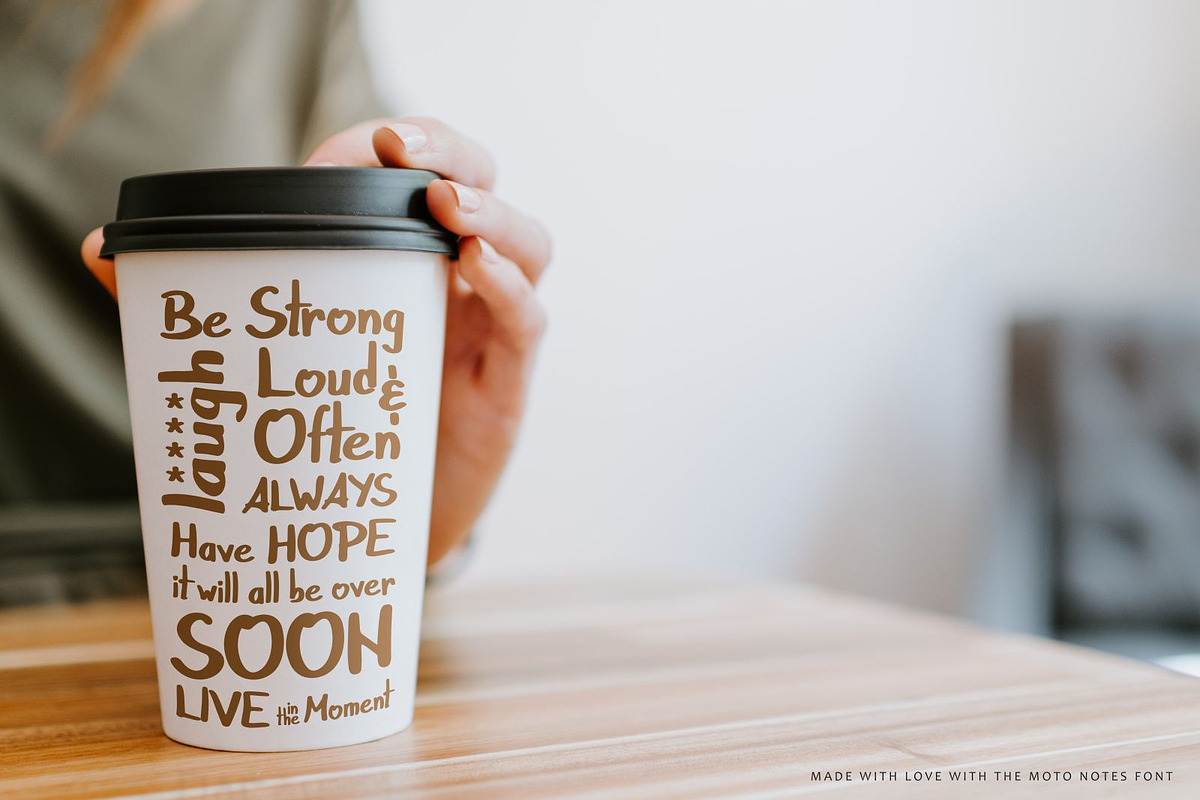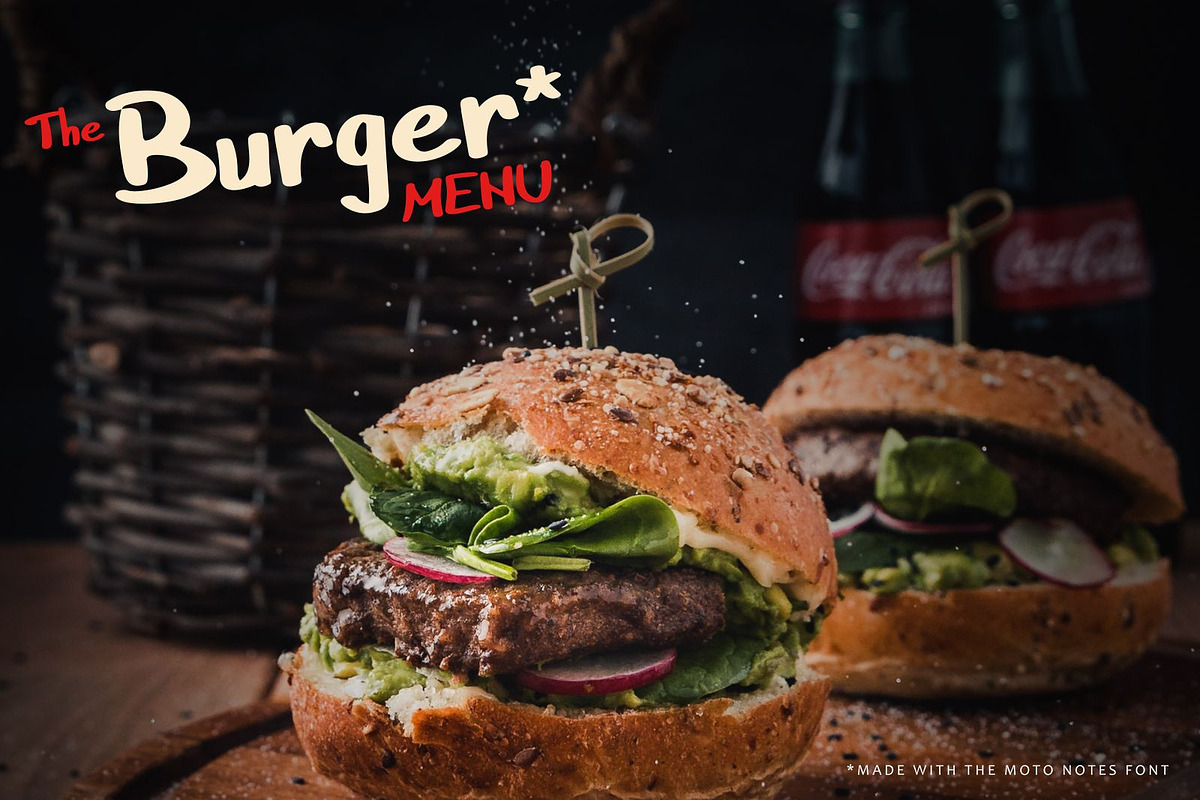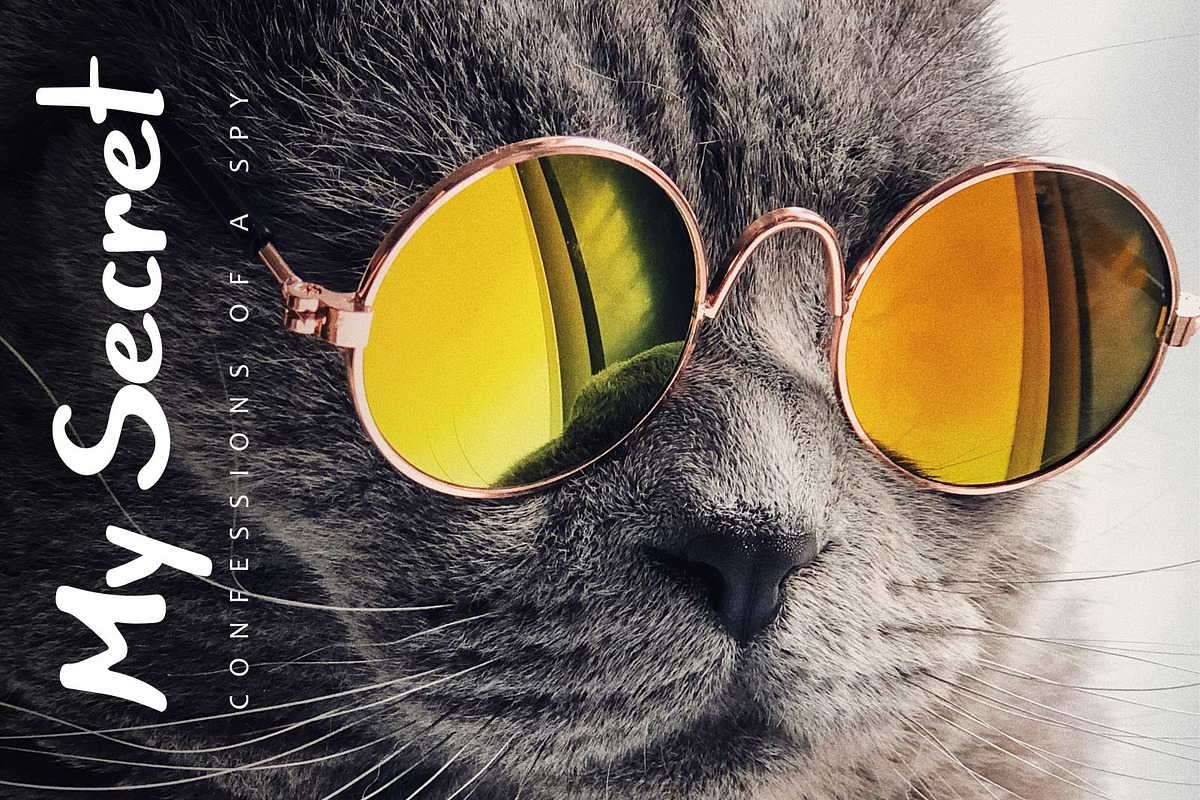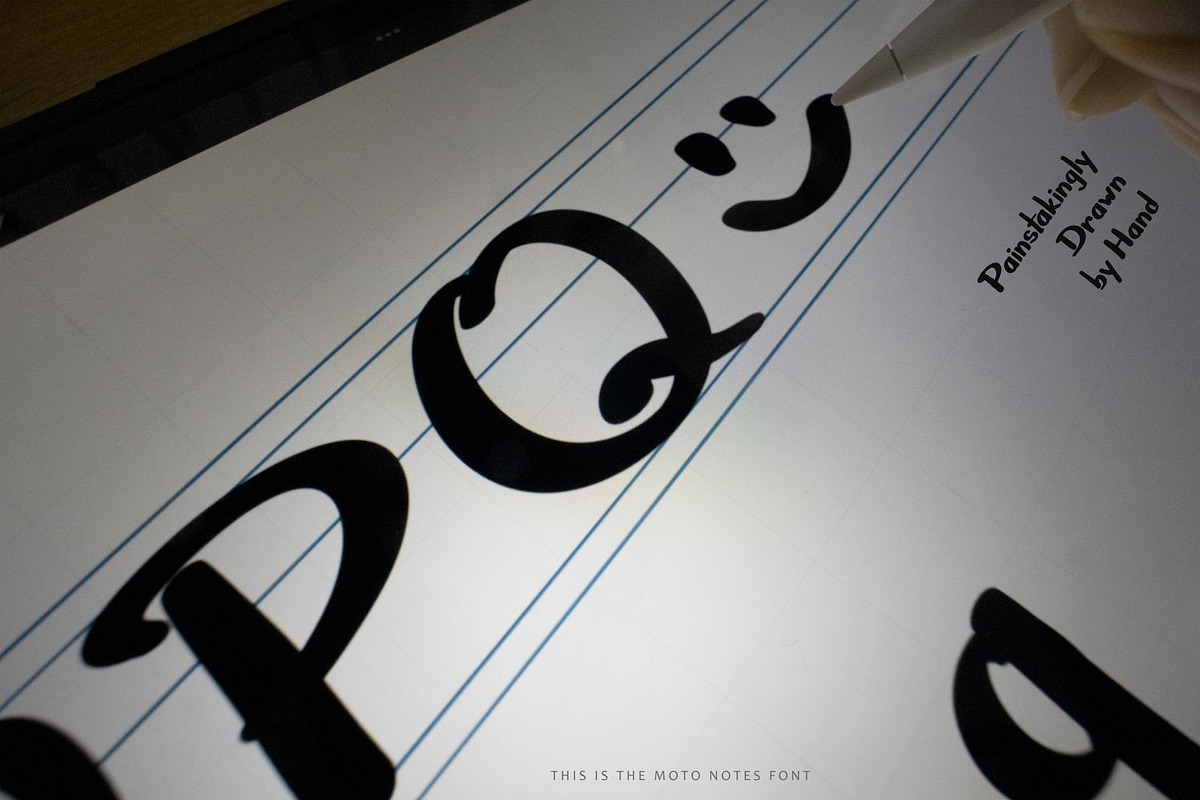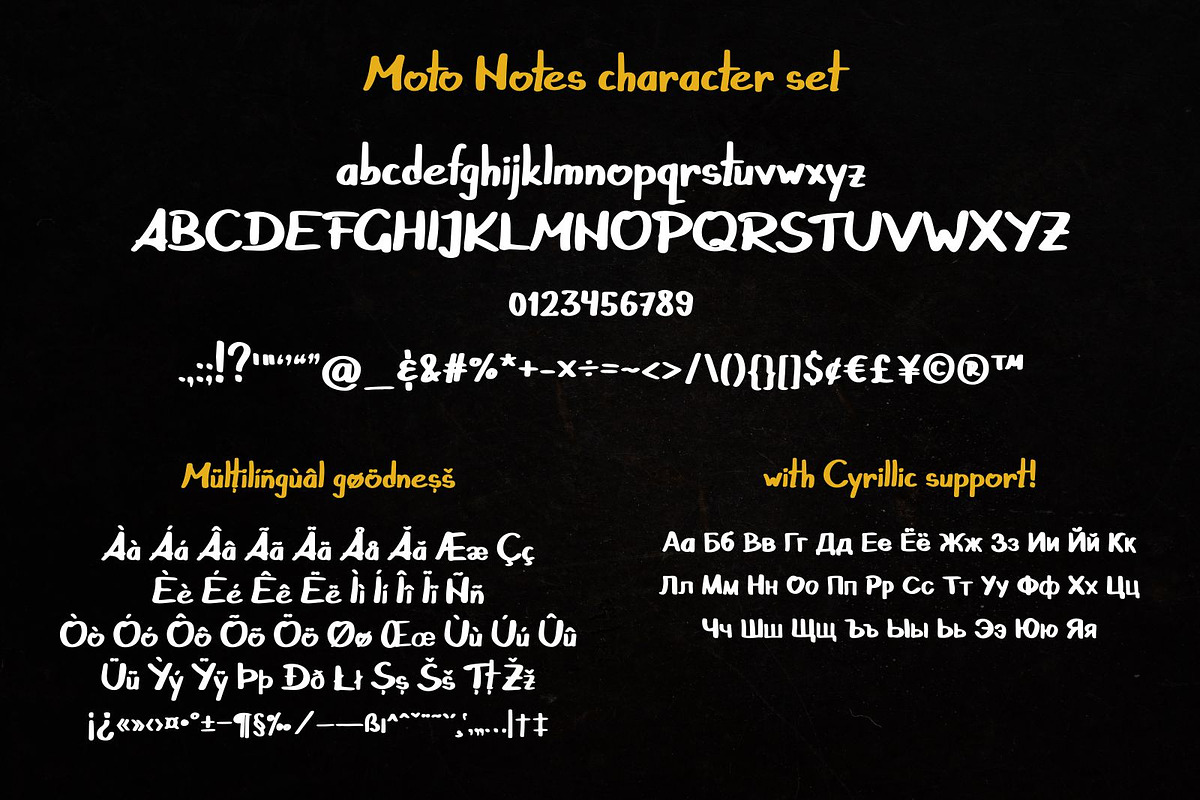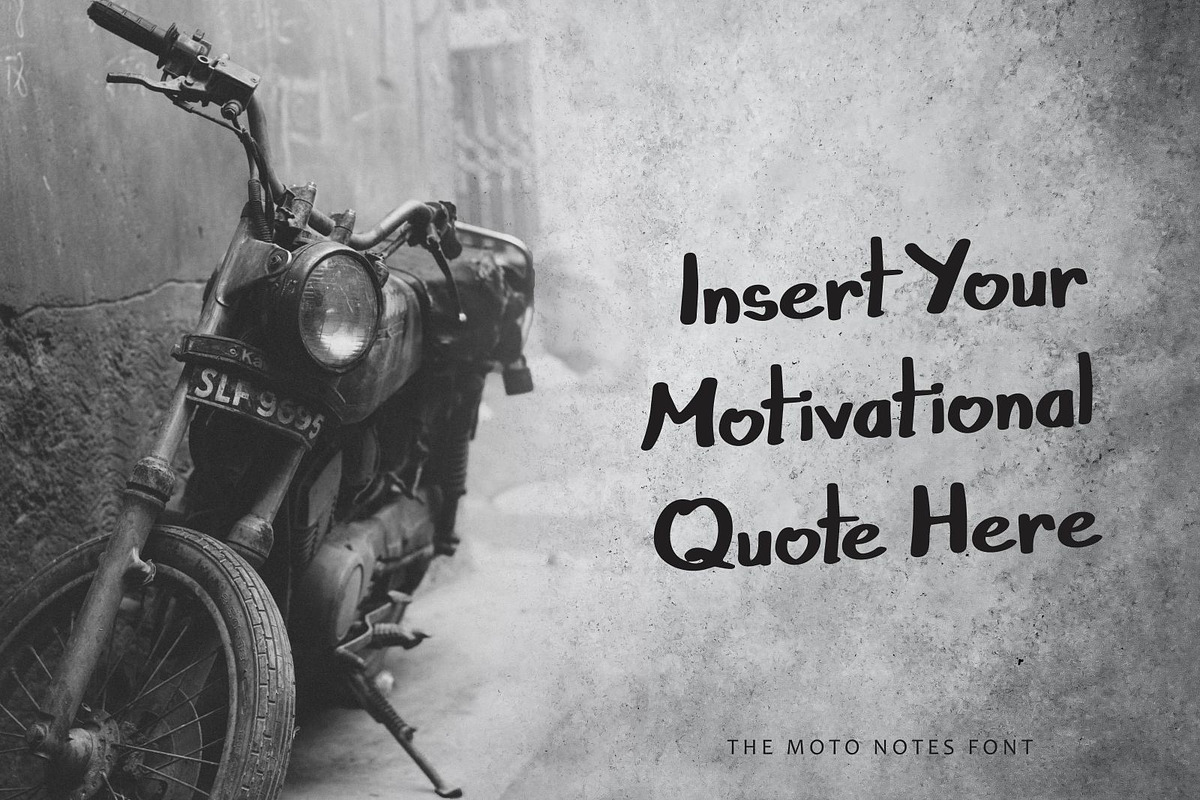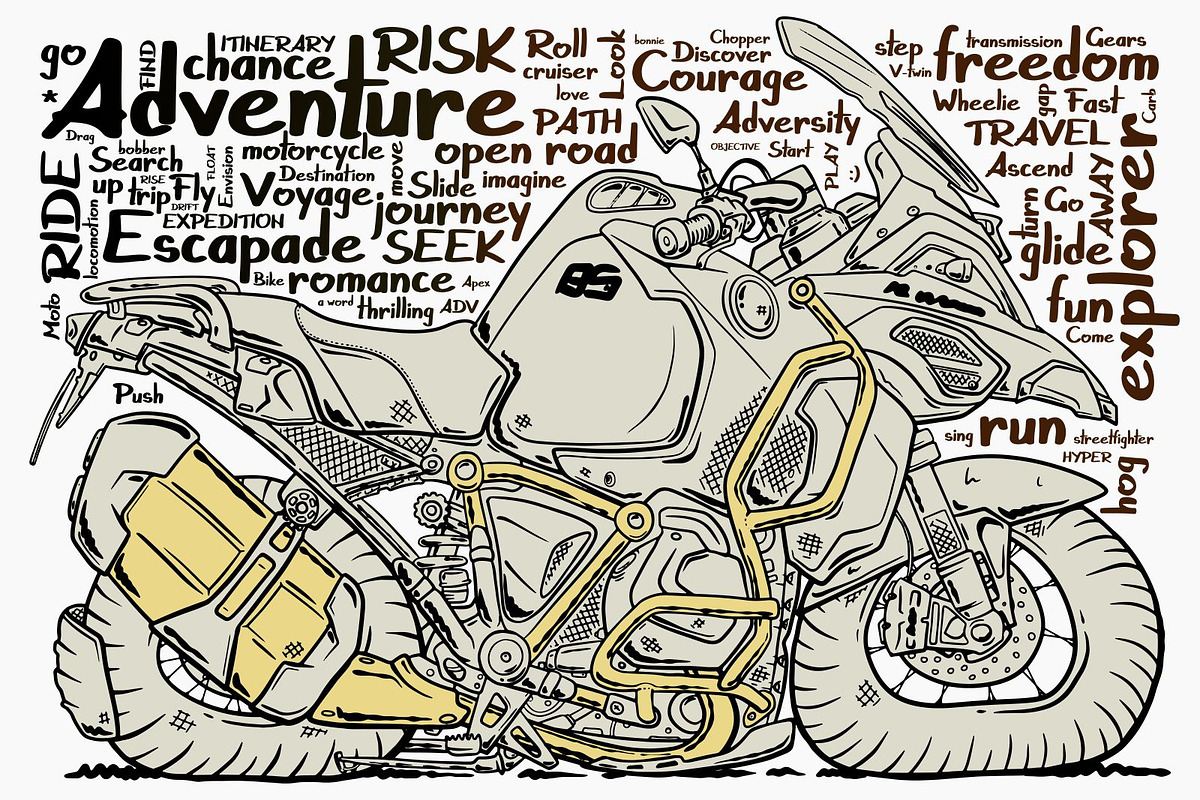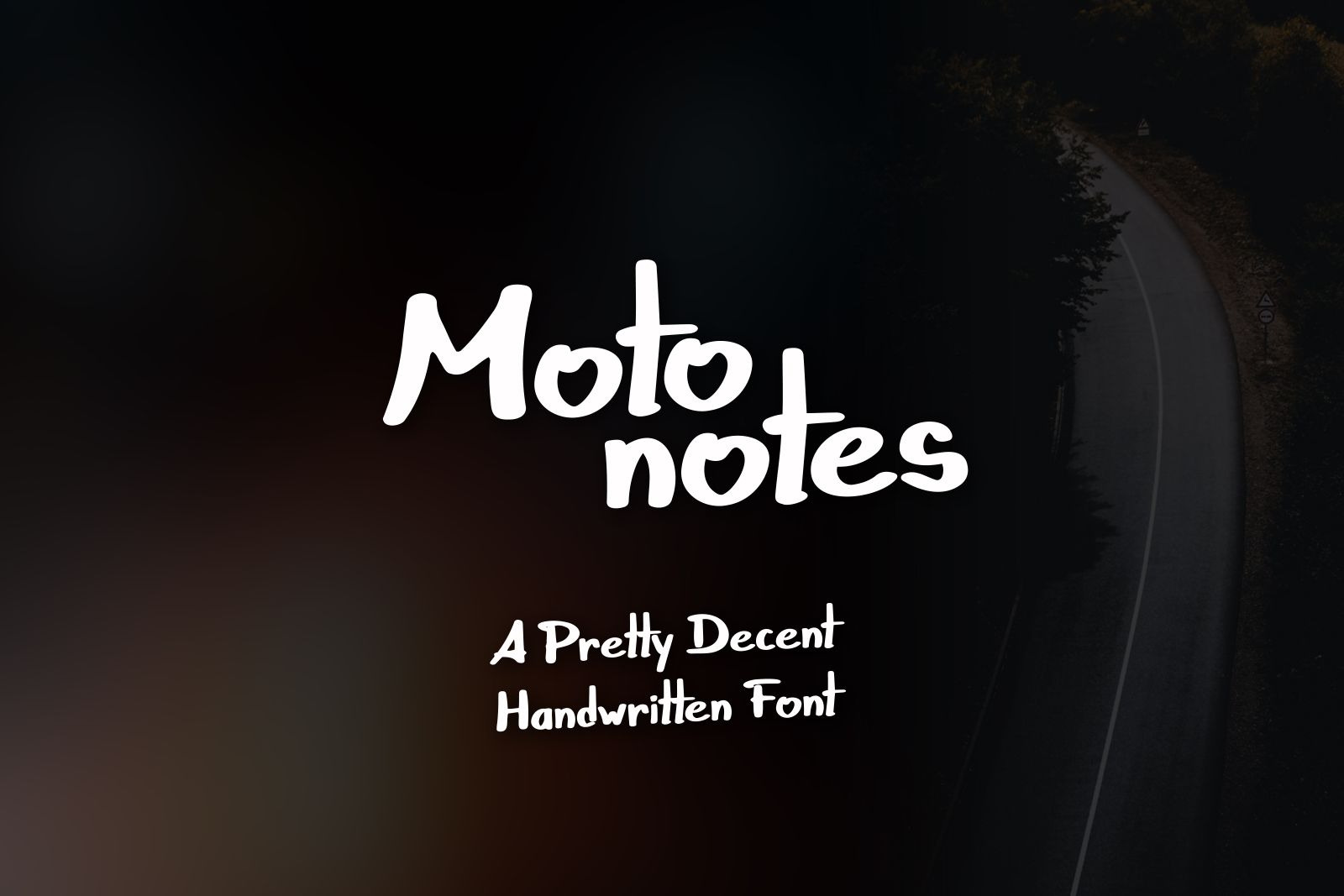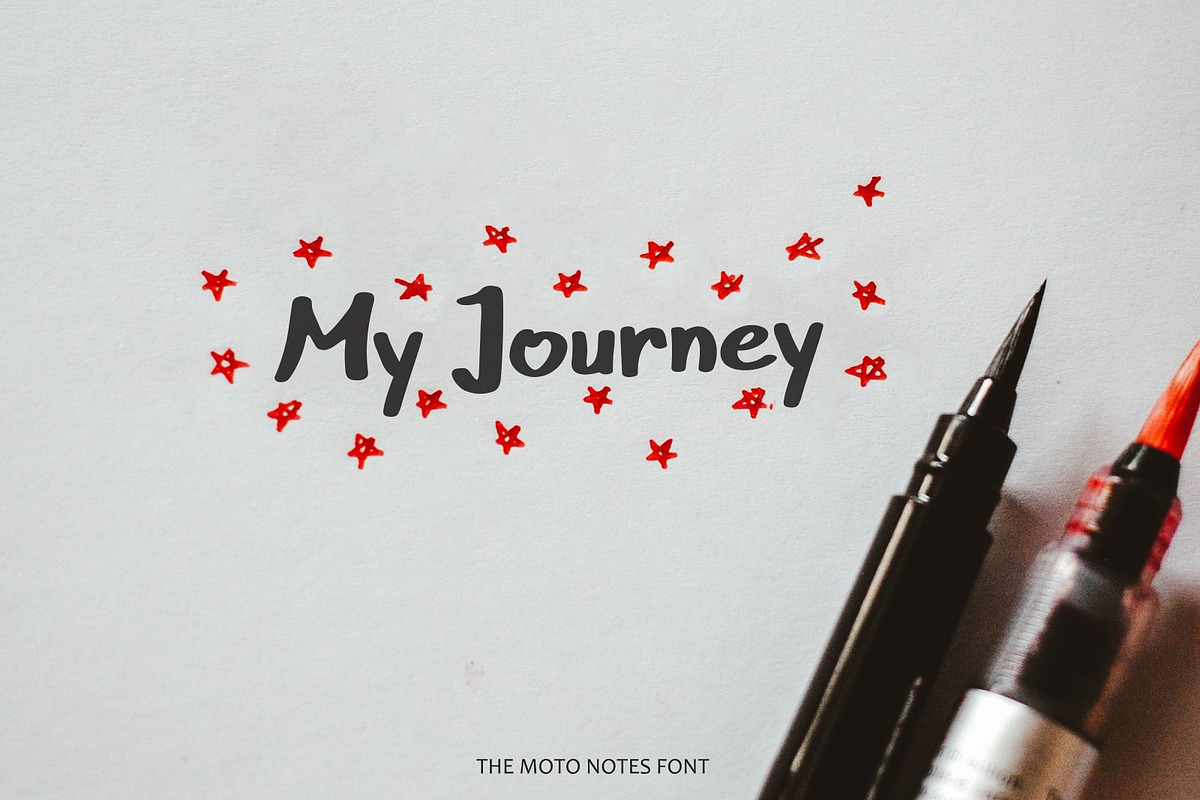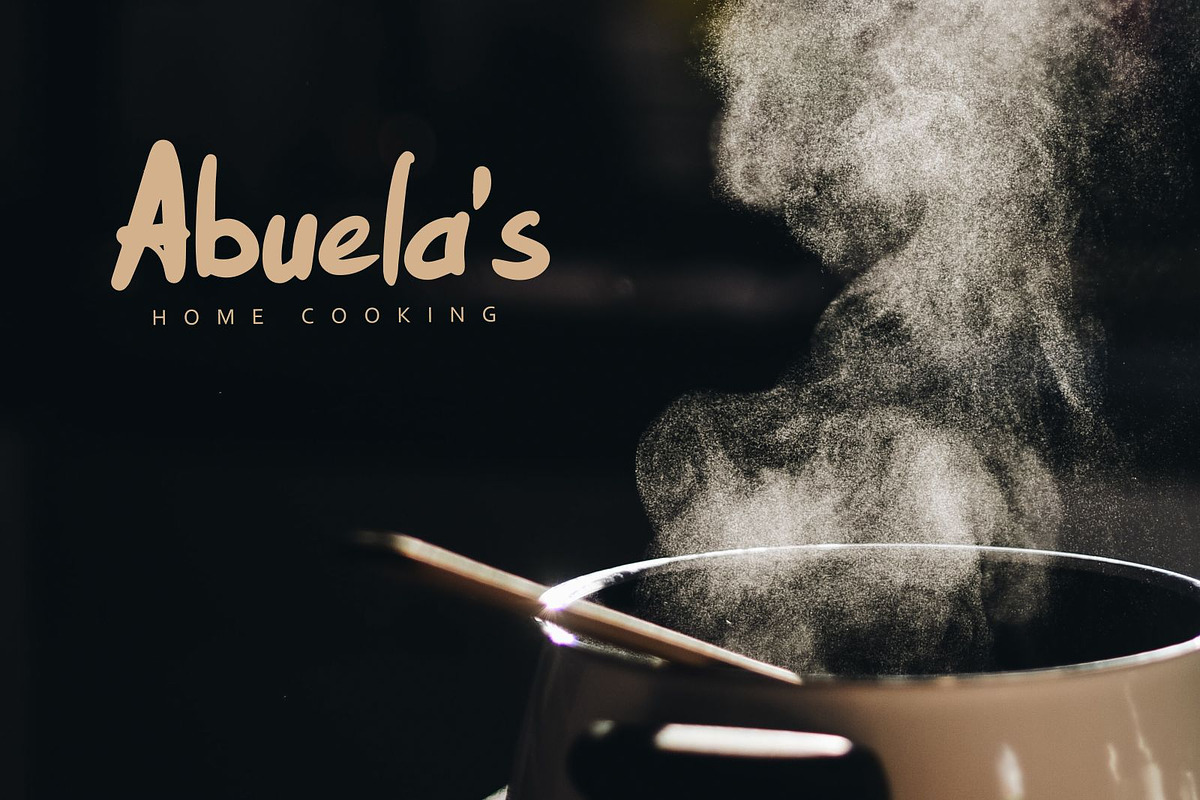
Moto Notes font (handwritten)
Handmade handwriting font
Moto Notes is a beautiful handwriting font, ideal for brand names, titles and inspirational quotes, but also great for filling up pages of text.
- punctuation and special characters (a lot of them)
- numbers and math symbols
- multilingual support
- Cyrillic alphabet letters